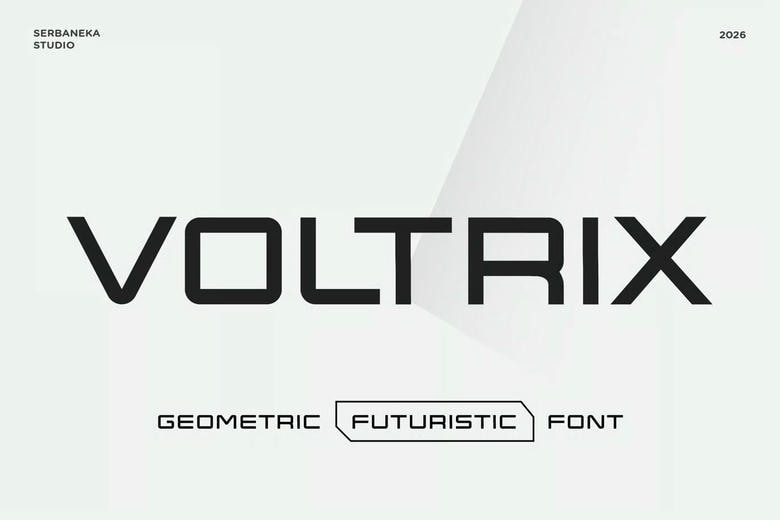
Voltrix Font
Voltrix is a geometric sans serif font with a modern, futuristic look. Its clean lines, unique shapes, and sleek style add a sharp, sophisticated touch to any design.
Voltrix takes inspiration from digital technology, sci-fi, and modern architecture. Its bold shapes and clean structure make it a great choice for headlines, titles, logos, and branding that need a modern feel.
Voltrix works well for tech brands, gaming, sports graphics, posters, digital interfaces, car designs, architecture, product branding, magazines, and social media. It also fits logotypes, packaging, merchandise, and creative projects.
Voltrix Sans Serif Font